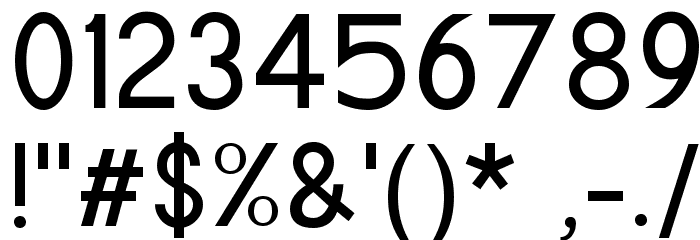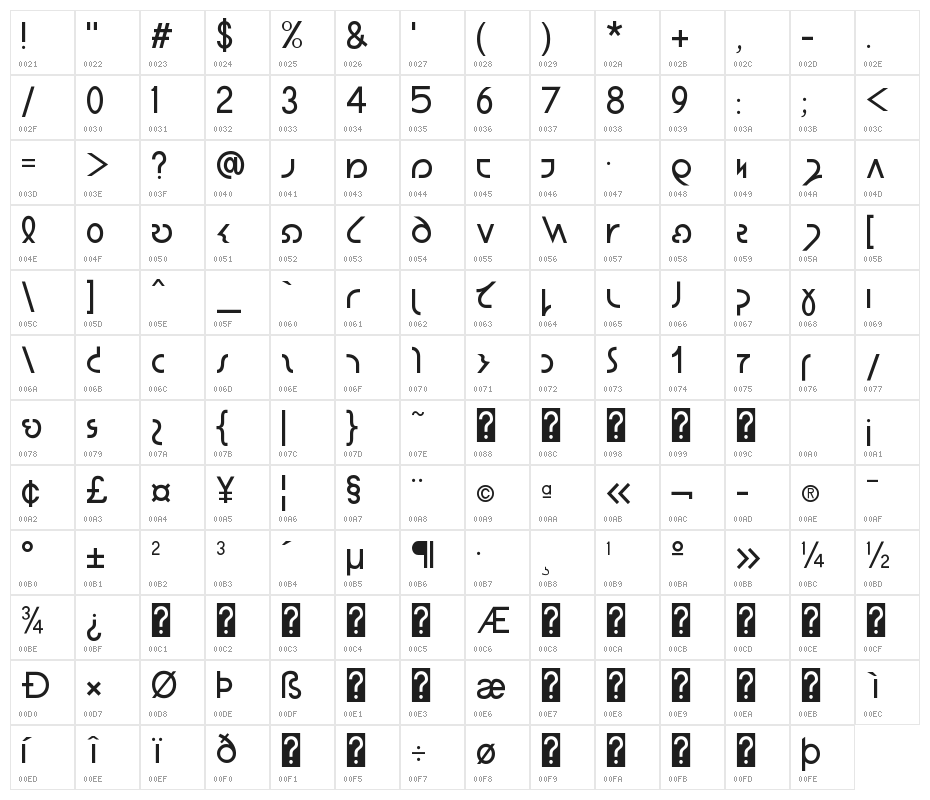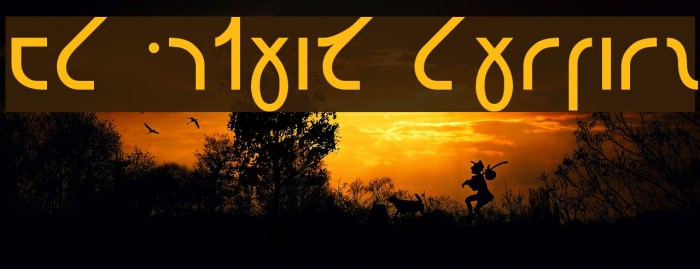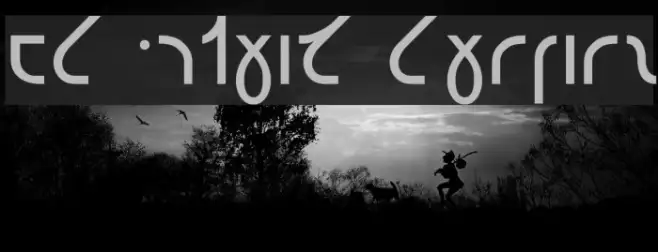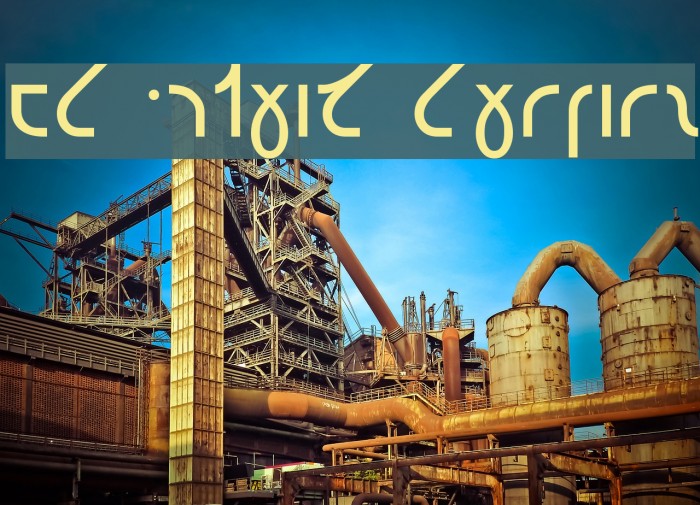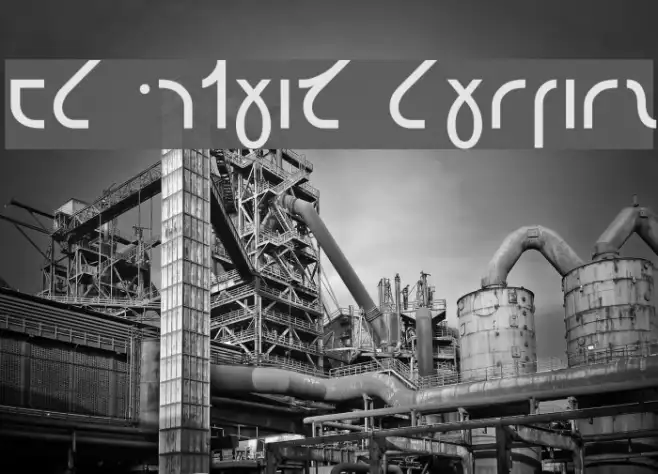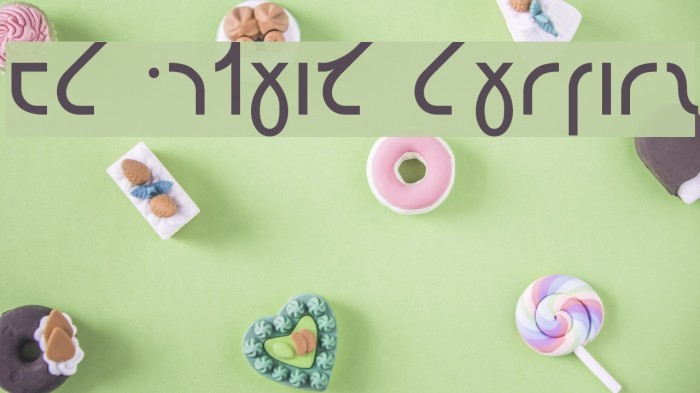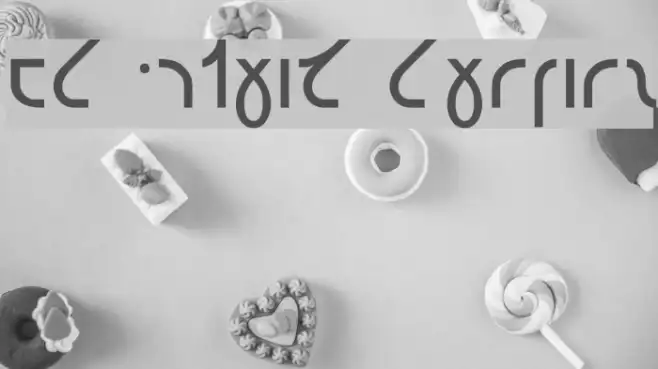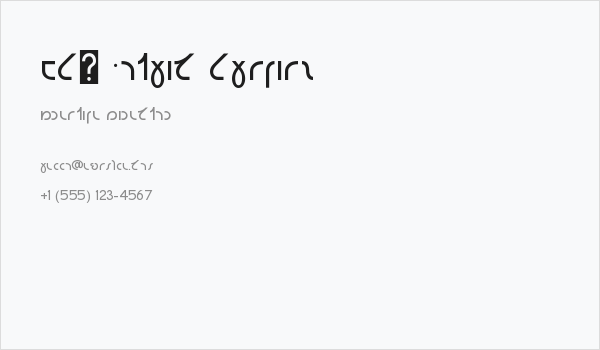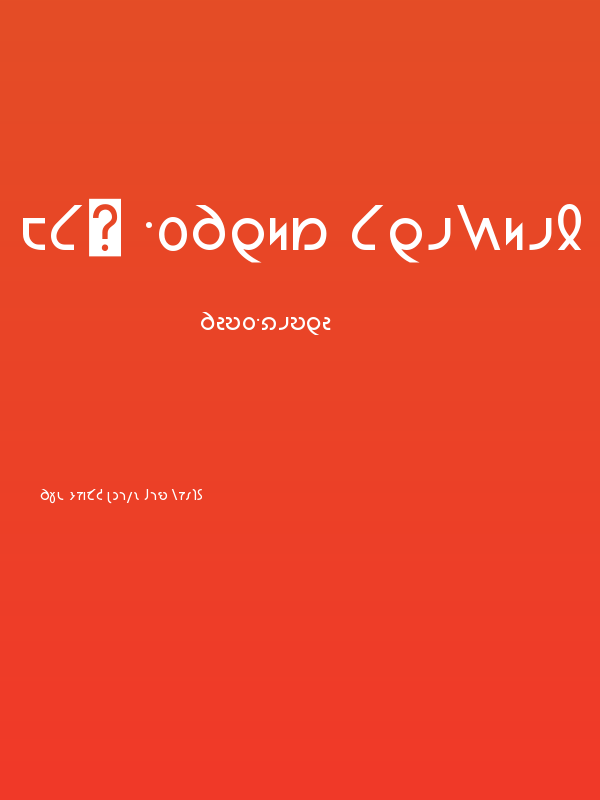
ESL Gothic Shavian Font
ESL Gothic Shavian Description
This font features a unique and modern design, characterized by its bold and geometric shapes. The characters are distinct with a futuristic aesthetic, making it stand out in any design project. The strokes are consistent in thickness, providing a uniform appearance across all characters. The numbers and special characters maintain the same stylistic approach, ensuring cohesion throughout. This font is ideal for projects that require a contemporary and edgy look.